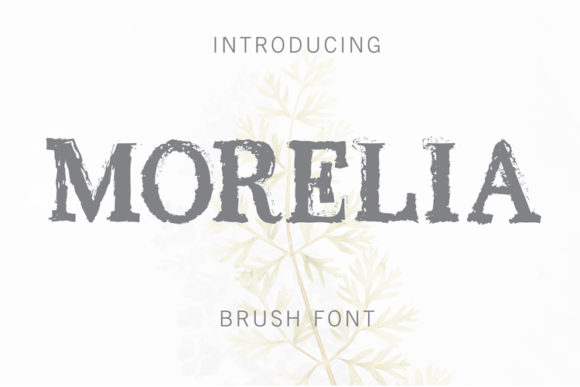
Introducing Morelia Font, the definitive font for church signs, crafted with love and care to captivate your congregation.
Morelia isn't just a font; it's a visual symphony of faith and inspiration. Its casual, fun brushstrokes evoke a sense of warmth and welcome, inviting your flock into the heart of your sacred space.
But Morelia is more than just a pretty face. Its clean lines and quirky charm make it the perfect choice for a wide range of applications. From eye-catching logos and branding to social media posts and crafty DIY projects, Morelia adds a touch of whimsy and elegance to any design.
It's the perfect font to:
- Create church signs that make a statement
- Design logos that reflect your church's unique character
- Craft social media posts that inspire and engage
- Create DIY projects that add a touch of faith to your home
Morelia Font: The perfect font for spreading the word, one brushstroke at a time.